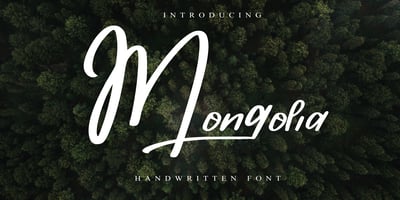
Mongolia
Mongolia font
Mongolia Font Family was designed by Mariyana and published by Goodigital13. Mongolia contains 1 styles and family package options. It can be used in different purposes: lettering and logotype, labels, t-shirts, product packaging, invitations, advertising, and any classic / vintage typography design projects. will be great for any projects including : branding, logo, stationery, business card, signage, flyer, brochure etc. Almost all industries will be match for this typeface: events, music video, makeup artist, travel, promotions, musician, magician etc